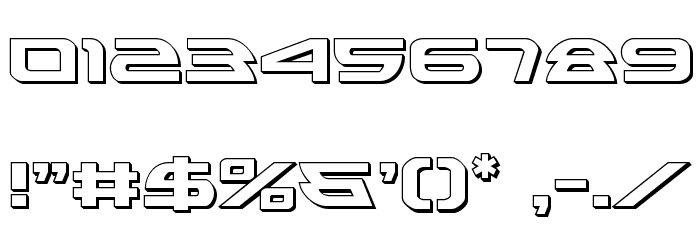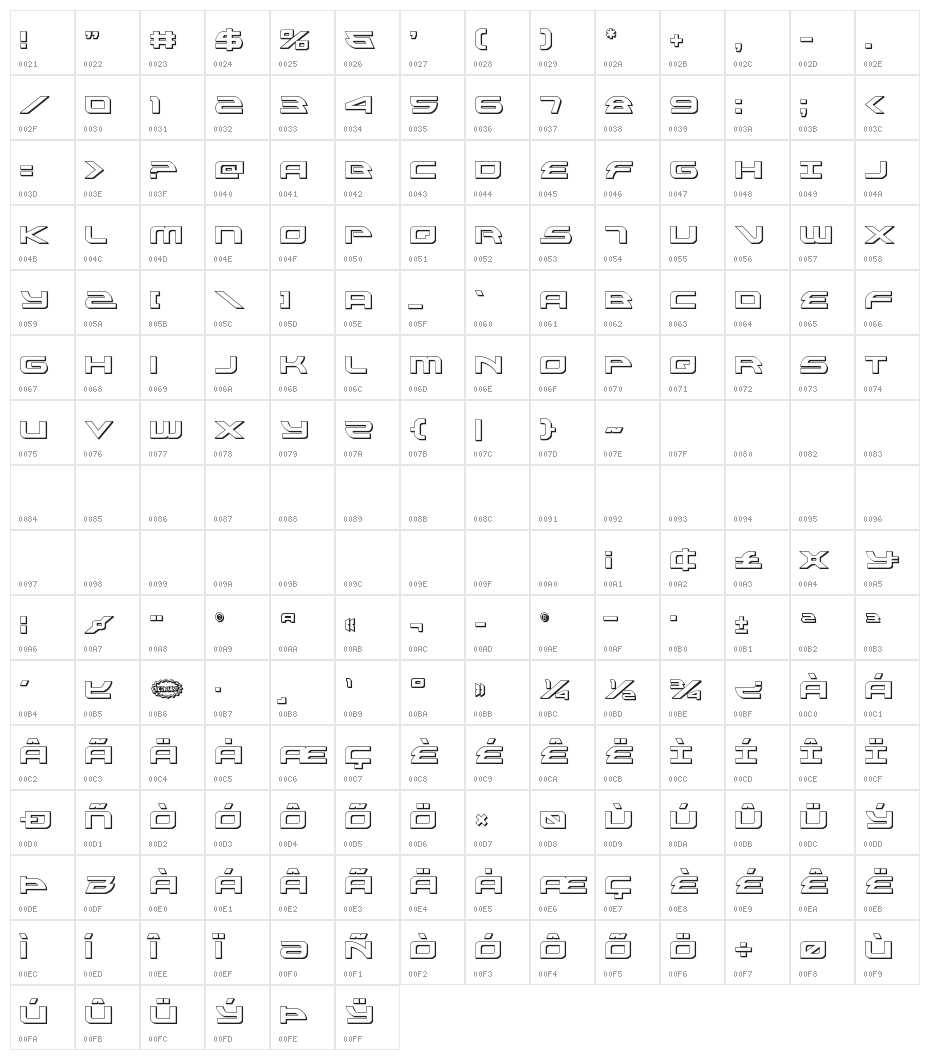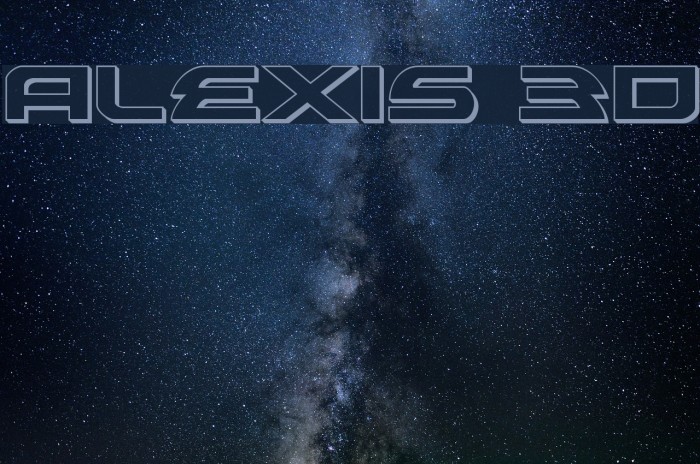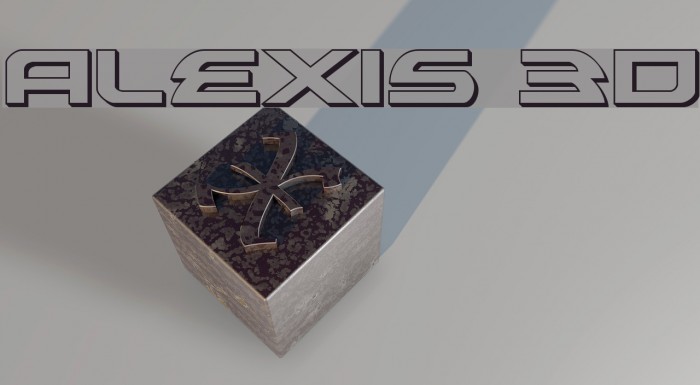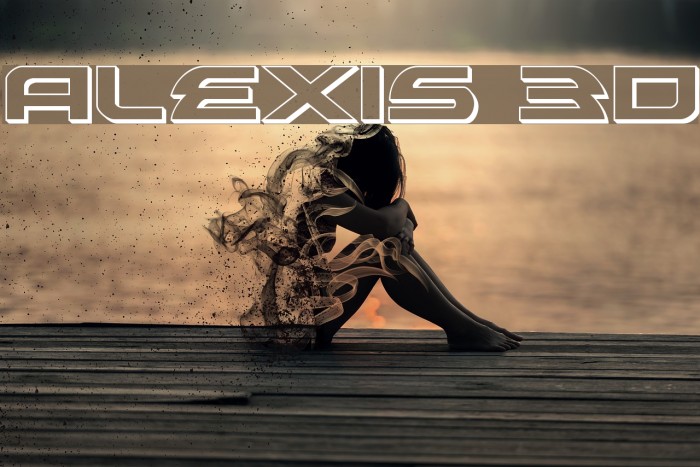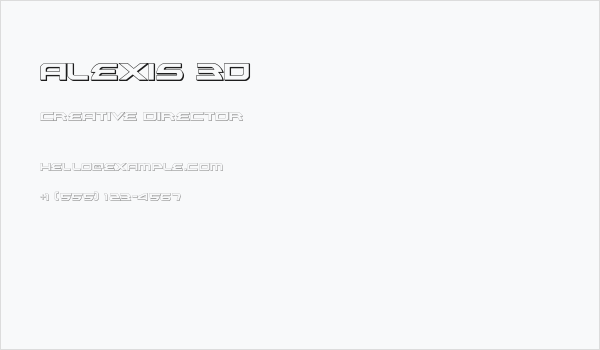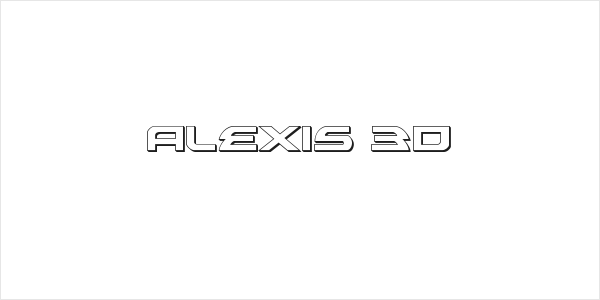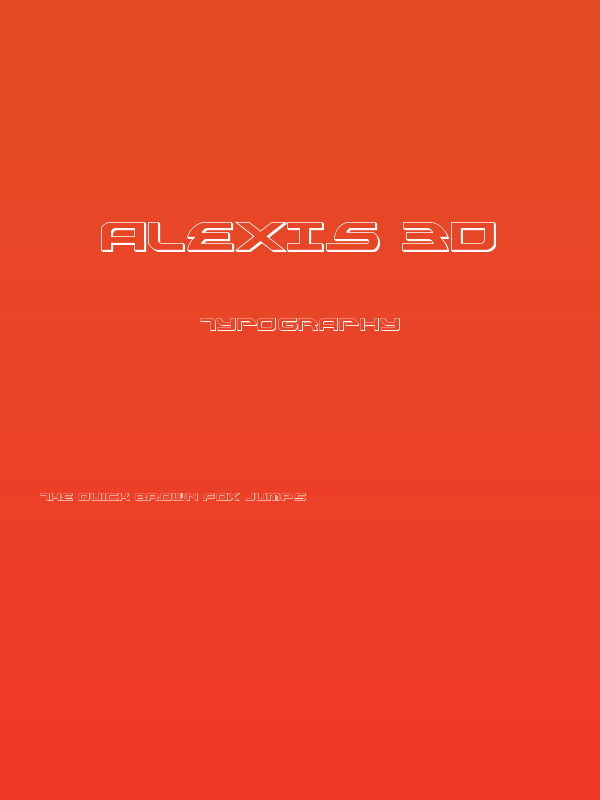
Alexis 3D Font
Alexis 3D Description
This font features a bold, futuristic design with a three-dimensional effect that gives each character a sense of depth. The letters are outlined with a consistent stroke width, creating a hollow appearance that enhances the 3D illusion. The geometric shapes and sharp angles contribute to its modern and tech-inspired aesthetic. The uppercase and lowercase letters maintain a uniform style, with the lowercase mirroring the uppercase in structure. Numbers and special characters follow the same design principles, ensuring a cohesive look across all glyphs. This font is ideal for projects that require a standout, contemporary look.
Proposed ProjectsIdeal for sci-fi themed designs, tech branding, video game titles, and futuristic posters.